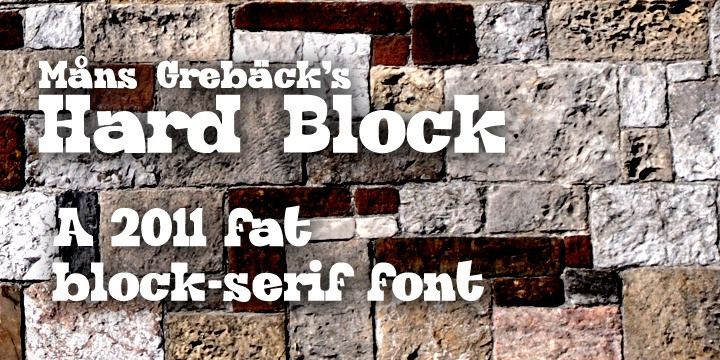
Hard Block Font
Hard Block Slab Serif Font, Perfectly fit for branding, logo, wedding things, greeting cards, fashion, lookbook, marketing promotion, anytime you want to look fancy elegant but still casual.